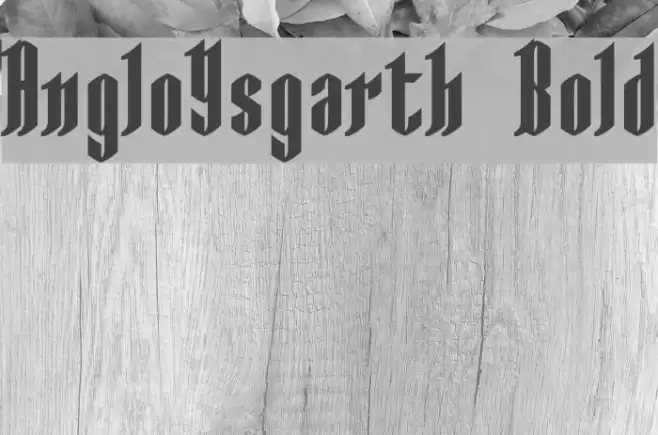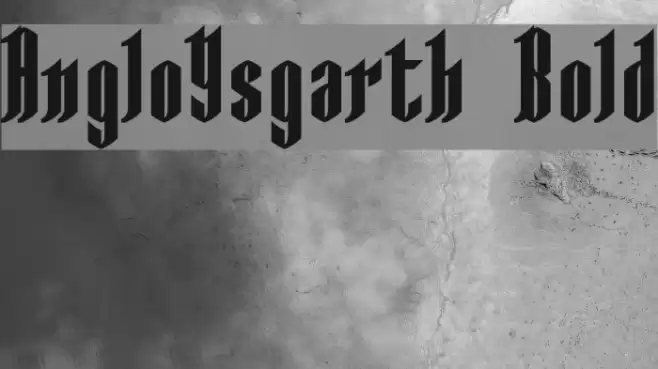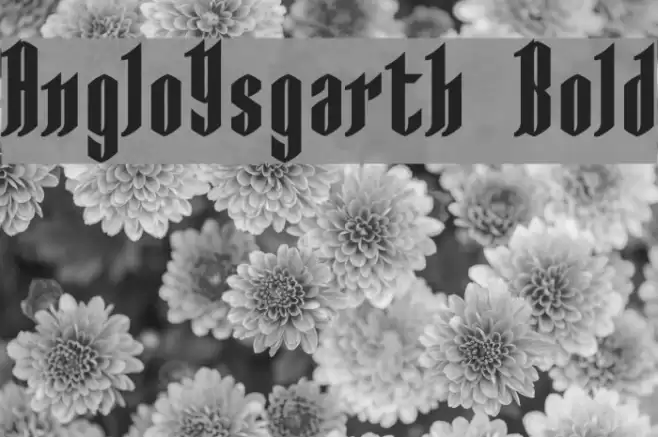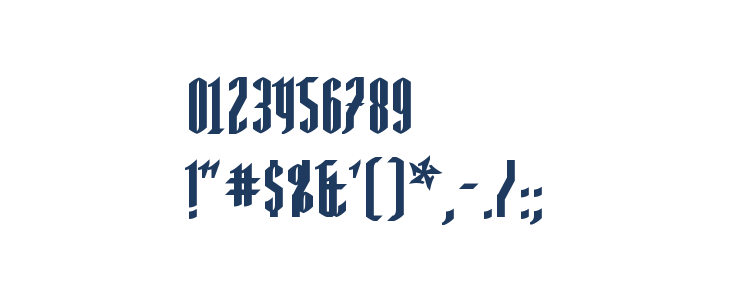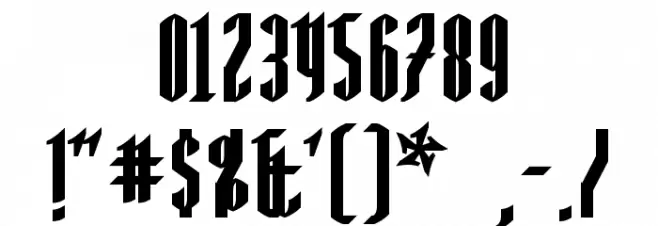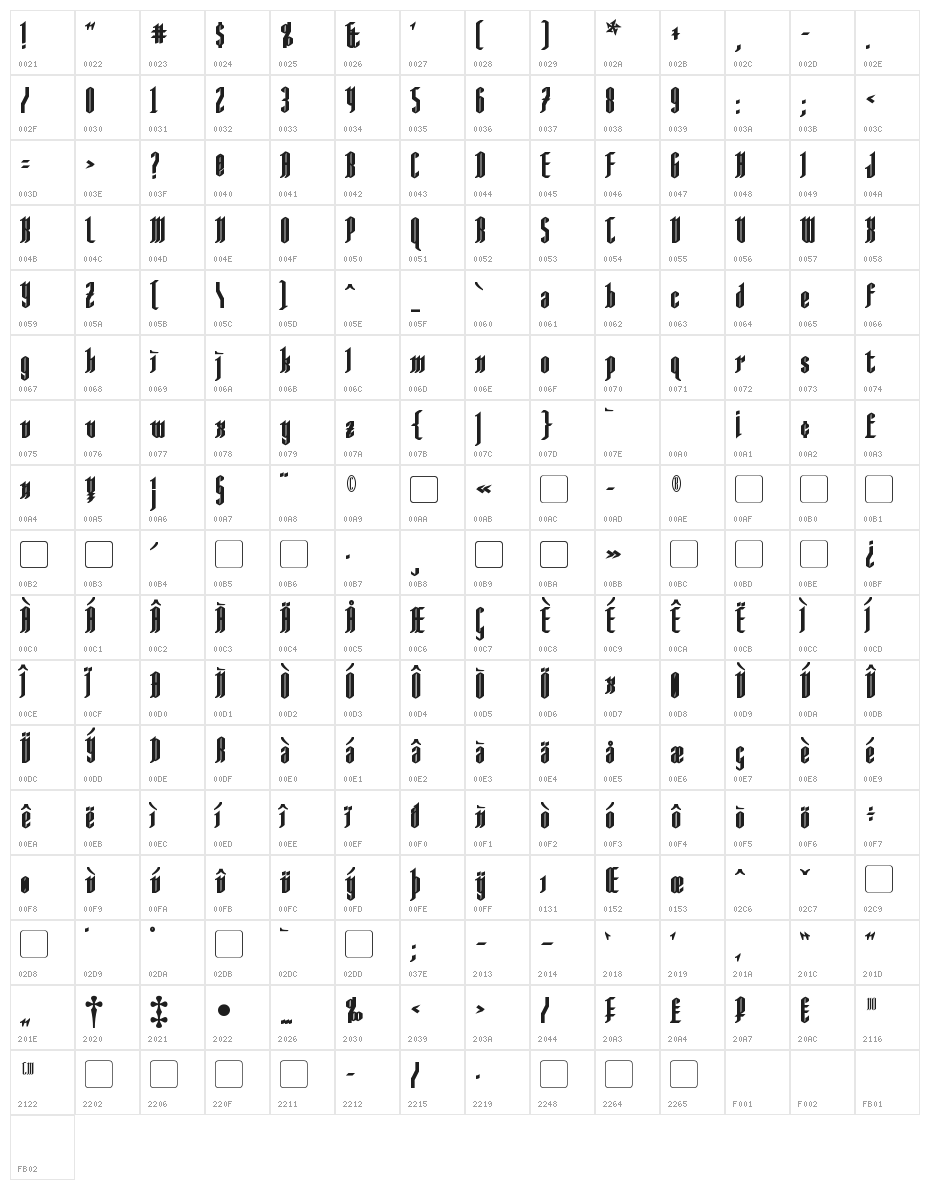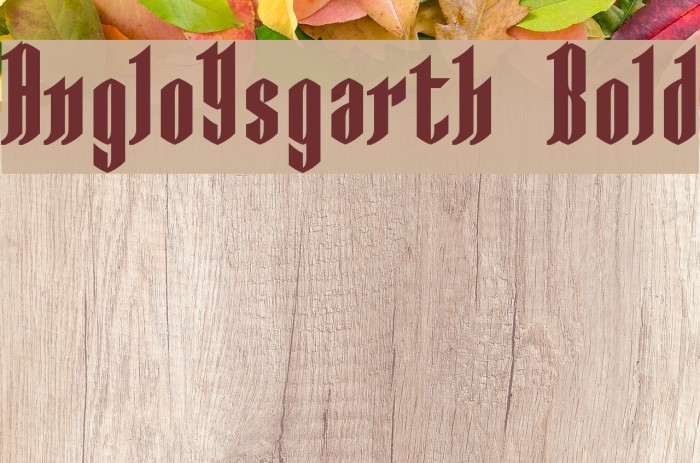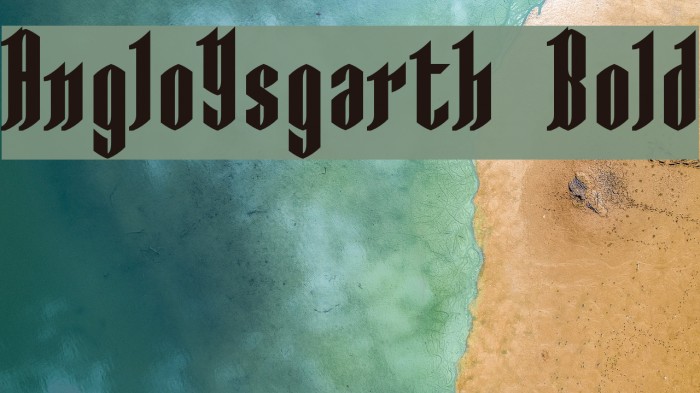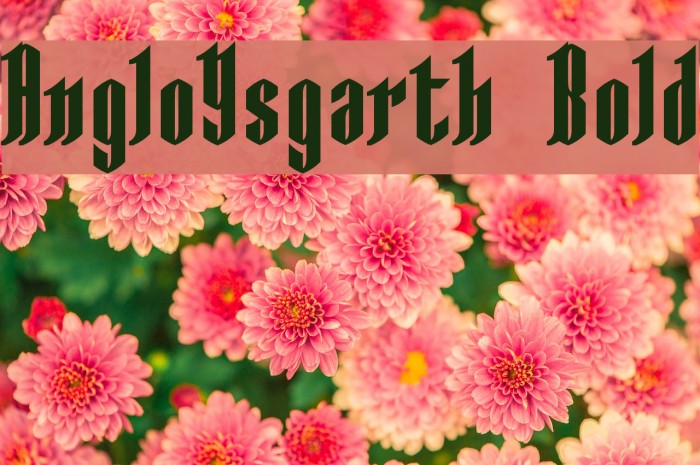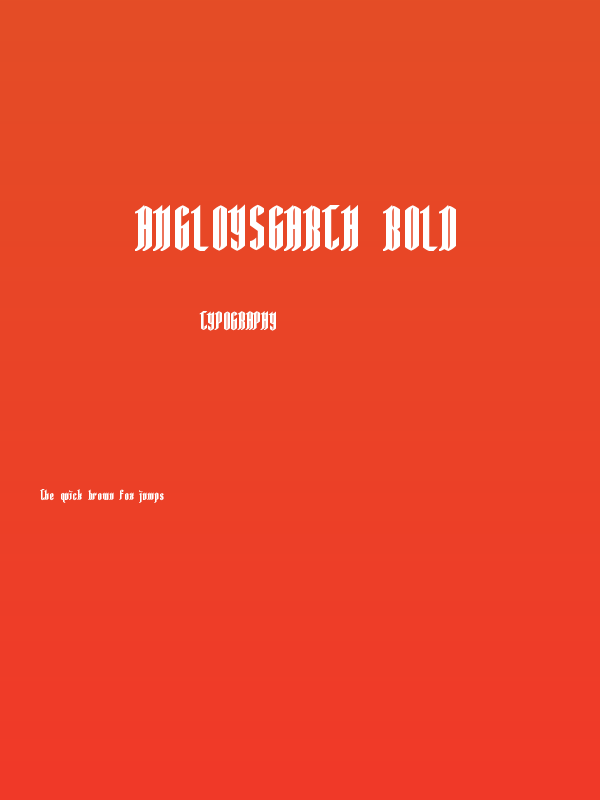
AngloYsgarth Bold Font
AngloYsgarth Bold Description
This font exhibits a bold and striking blackletter style, characterized by its sharp, angular lines and dramatic presence. The uppercase letters are tall and imposing, while the lowercase letters maintain a consistent style with intricate details. The numerals are equally bold, matching the overall aesthetic of the typeface. Special characters are designed with the same attention to detail, ensuring a cohesive look across all glyphs. This font is perfect for creating a strong visual impact, drawing on historical and traditional influences while maintaining a modern edge.
A bold blackletter font with sharp, angular lines and a dramatic presence from Uncategorized fonts.
- Proposed Projects: Ideal for projects requiring a historical or traditional aesthetic, such as book covers, posters, or branding for vintage-themed products.
- Overall Style: Vintage